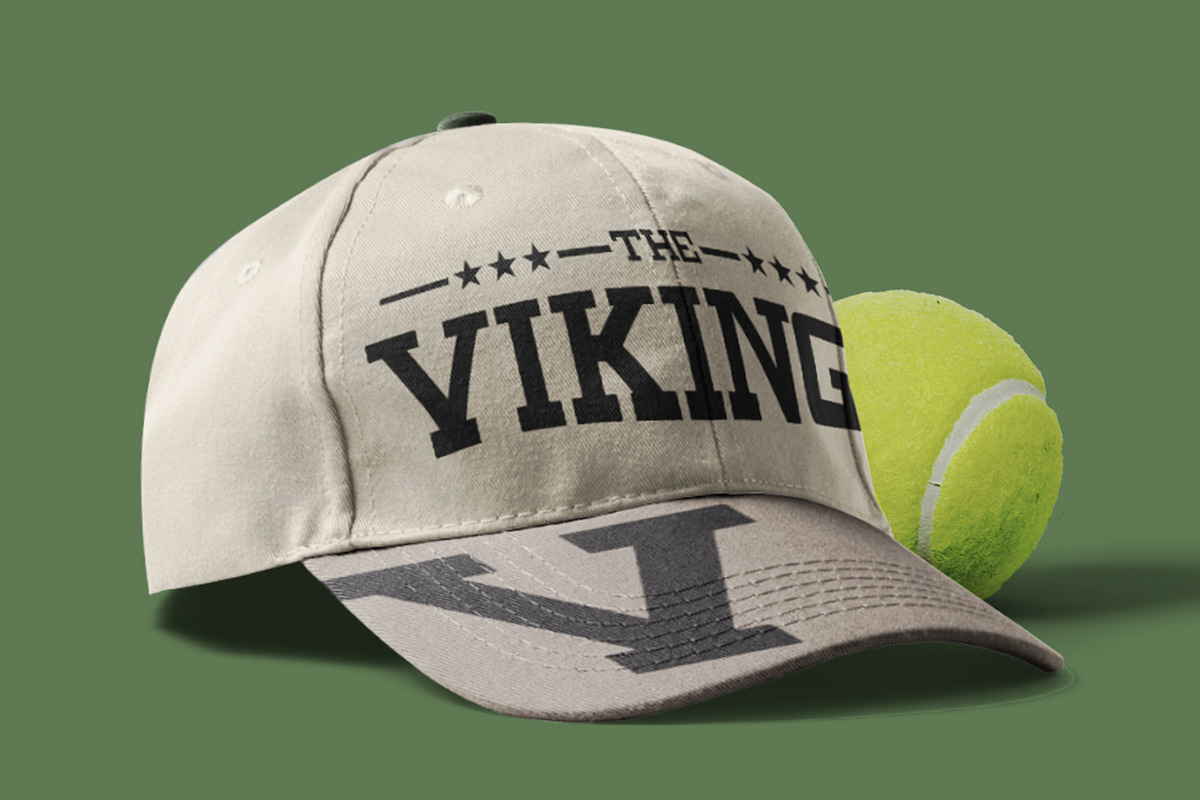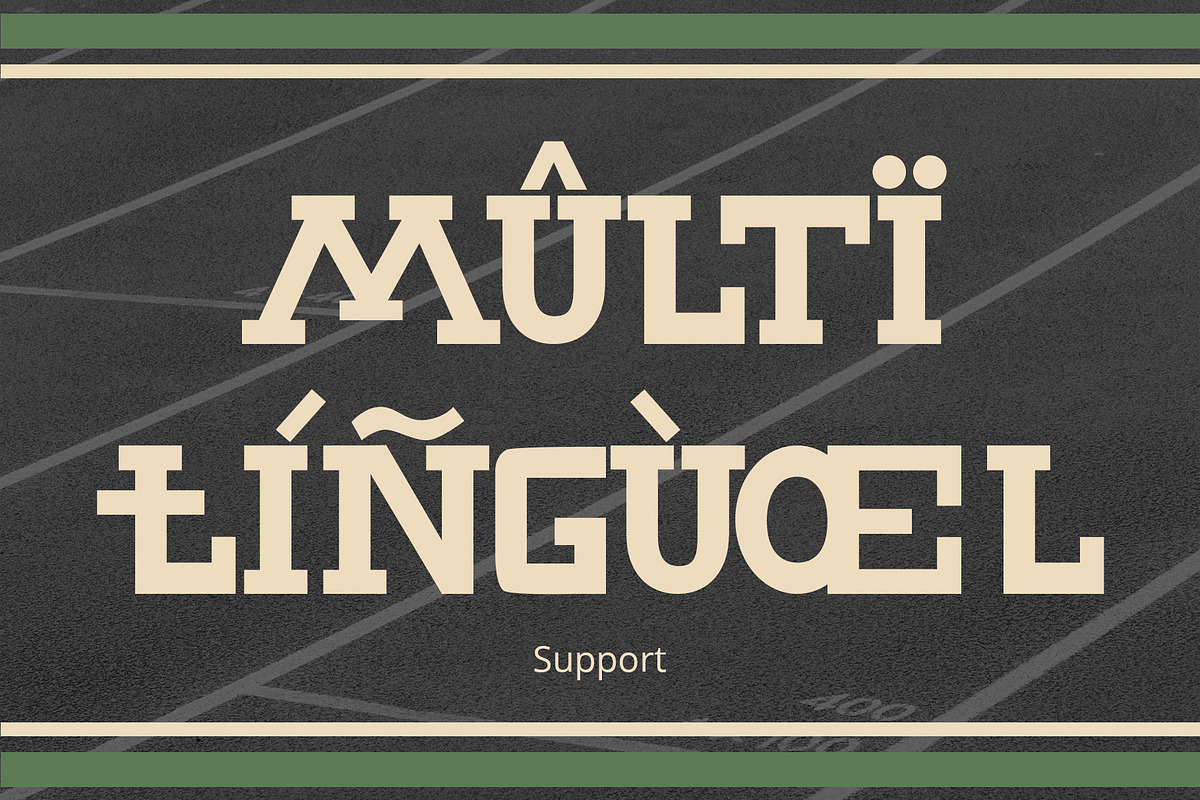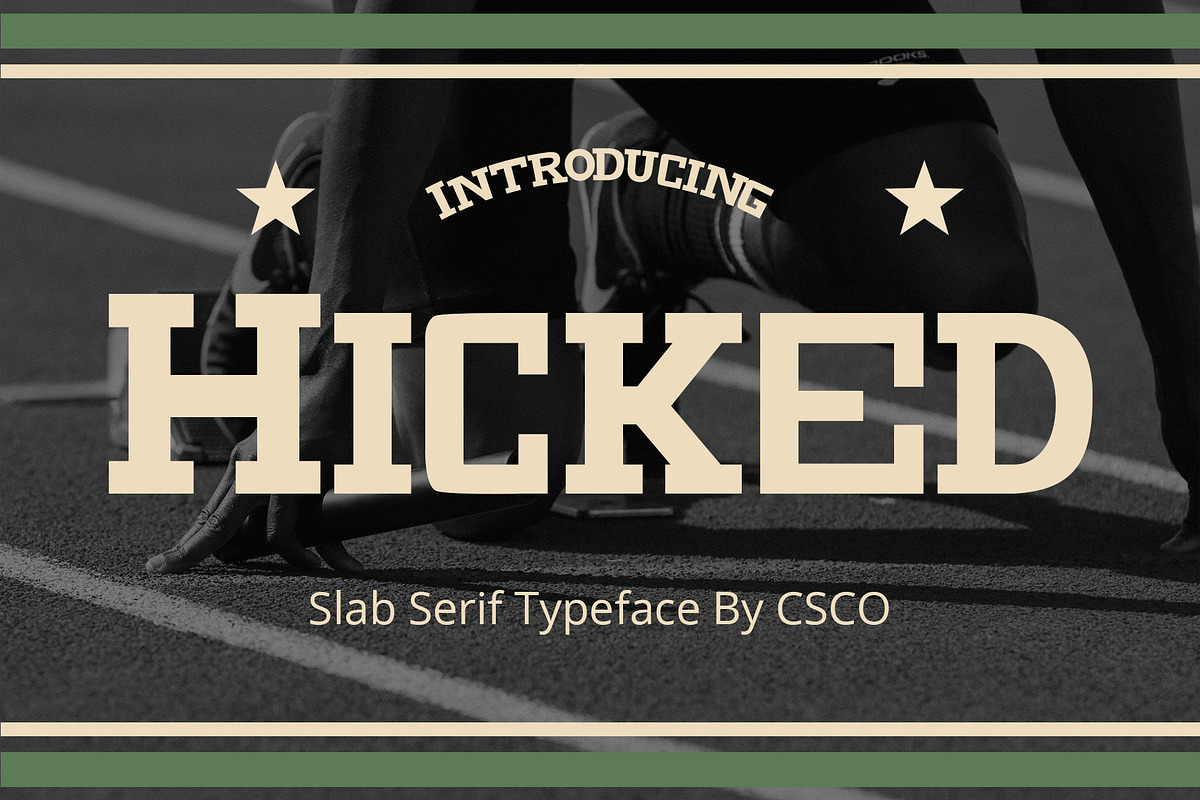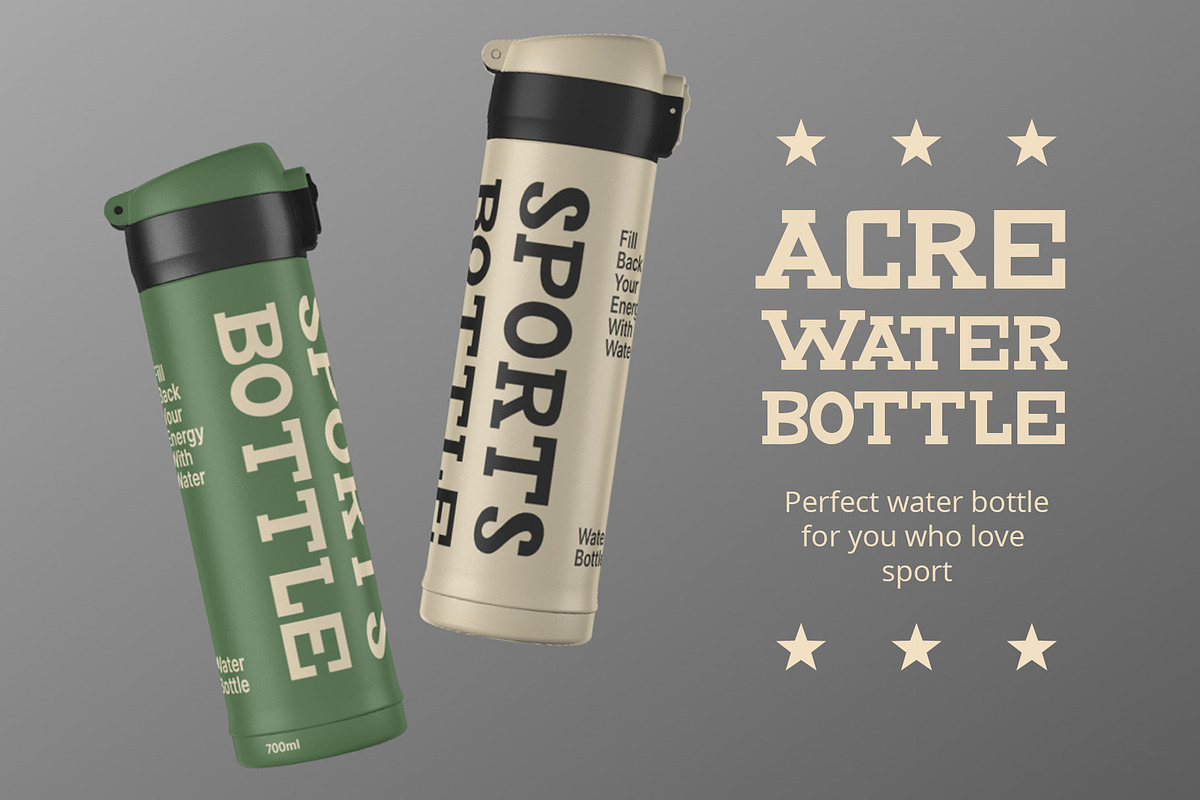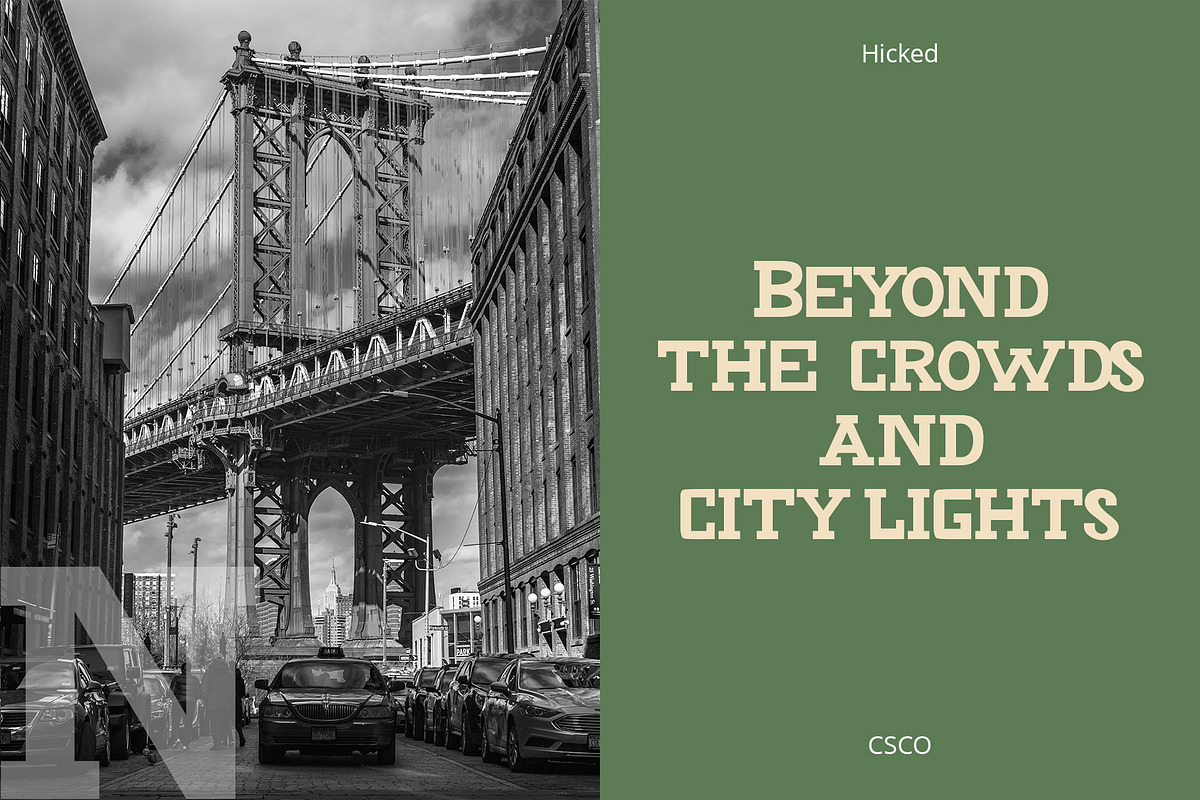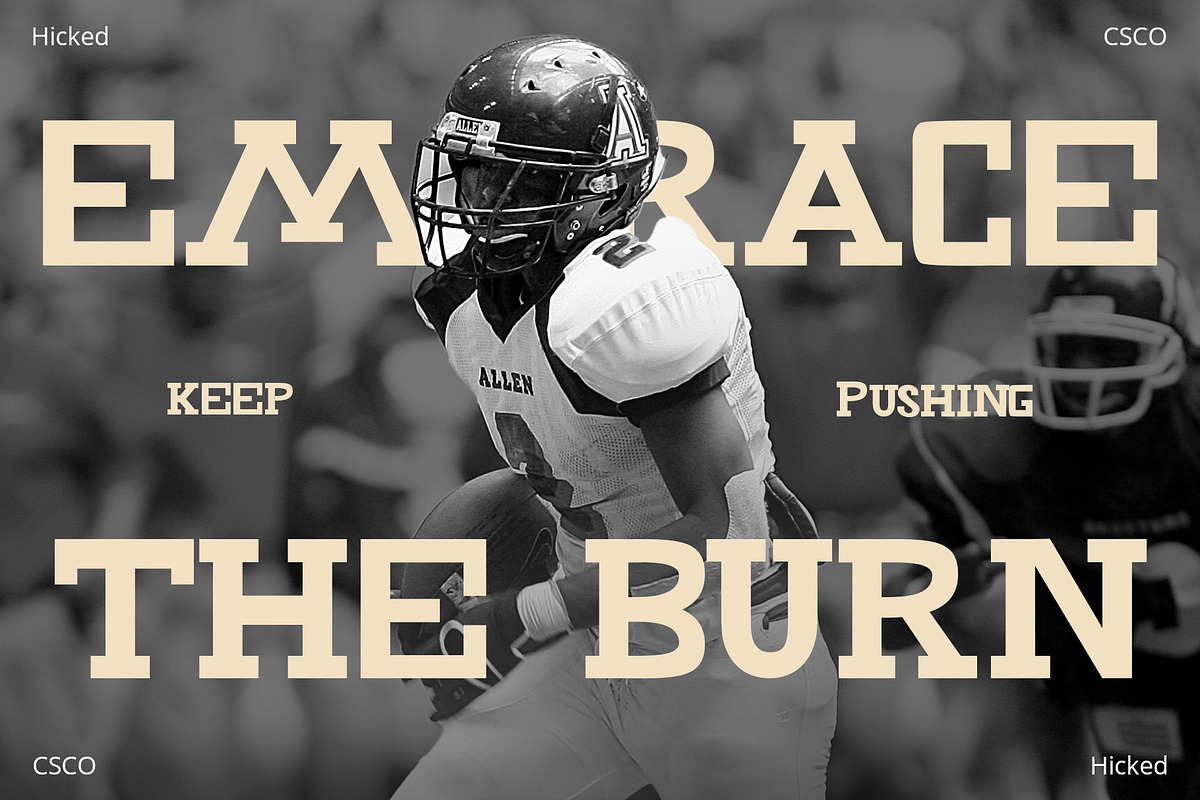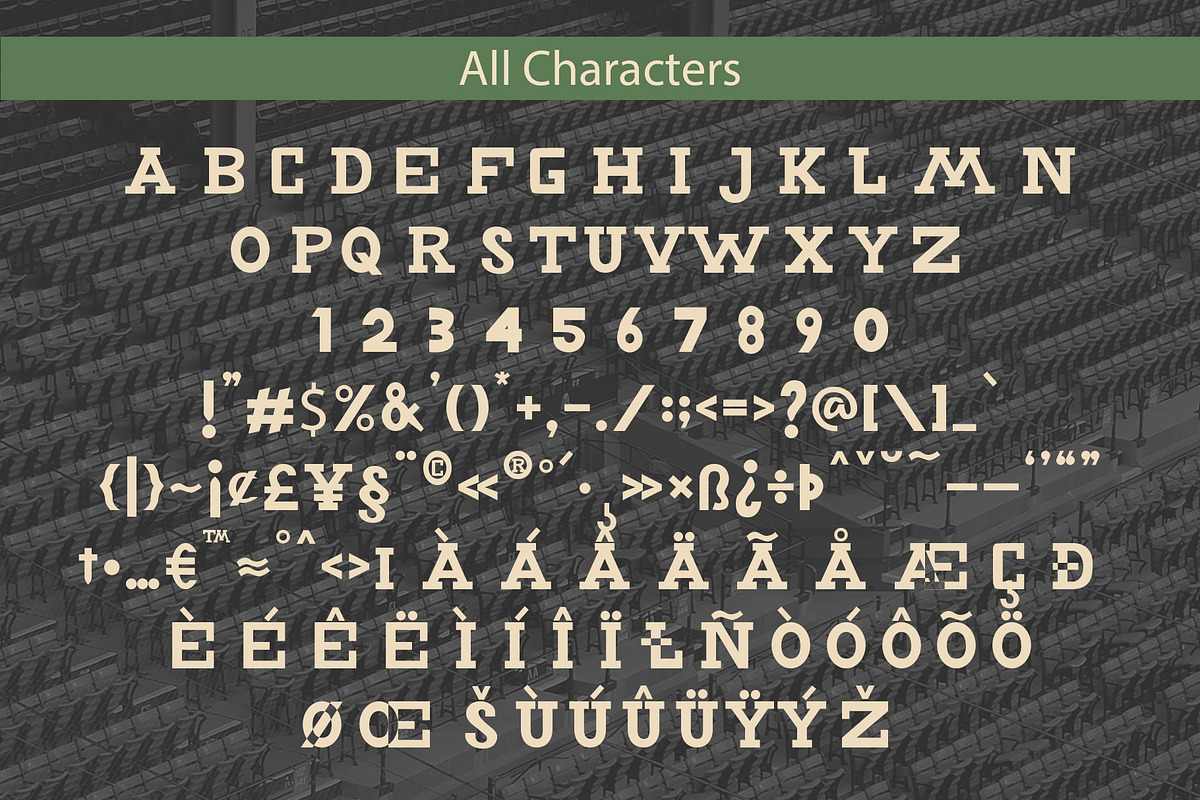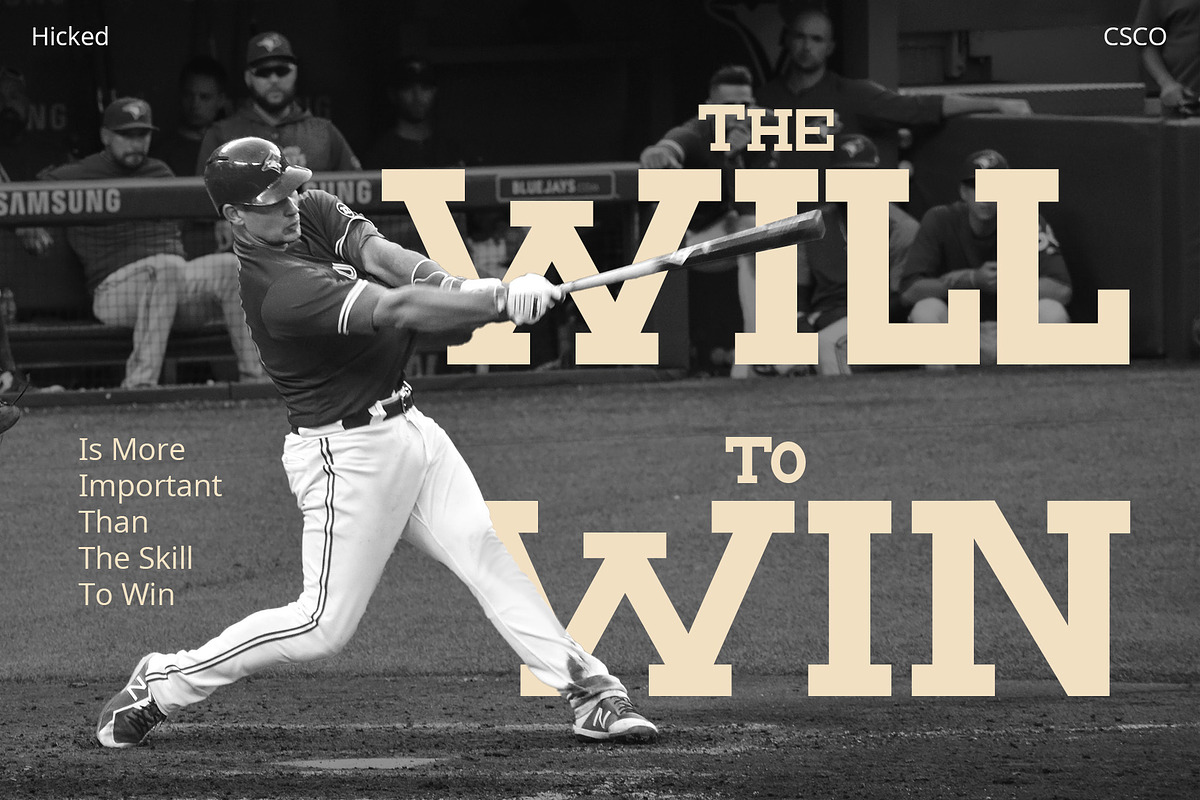
Hicked – Slab Serif Font
Introduction to Hicked – Slab Serif Font Hicked is a bold, slab serif font, ideal for impactful design work. Its masculine appearance gives it a strong presence. This font stands out in headings, logos, and posters. It’s perfect for anyone seeking a robust typeface.
Design Features Hicked features thick, block-like serifs that command attention. Its balanced letterforms ensure readability at various sizes. The font has a uniform stroke width, offering a cohesive look. Each character is carefully crafted for visual harmony.
Usability and Versatility Hicked excels in both print and digital media. Its clarity makes it readable even in smaller sizes. This font is versatile, suitable for branding, advertising, and editorial design. It can adapt to a wide range of design projects effortlessly.